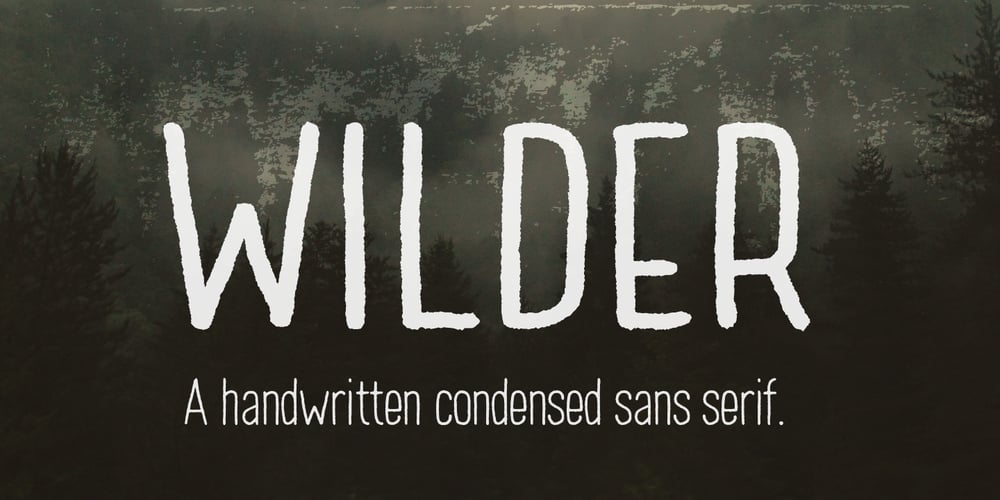
Wilder Font Family was designed by Daniel Feldt and published by Great Scott. Wilder contains 4 styles and family package options. Wilder is a condensed handwritten sans serif with both uppercase and lowercase characters. It has a generous x-height with big elongated counters and low set bars which gives Wilder a unique look. Great for packaging, print, and display use. You can also use it in shorter paragraph texts.